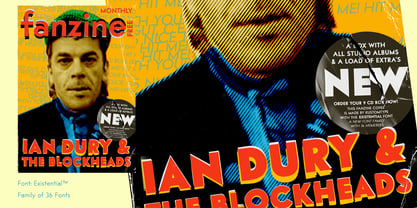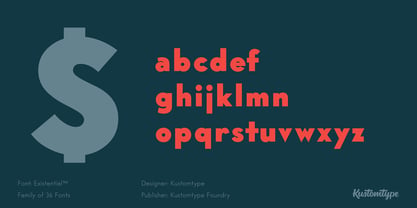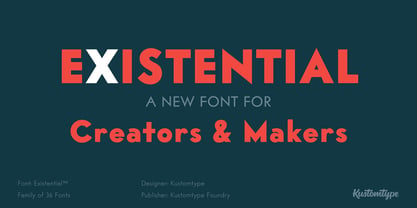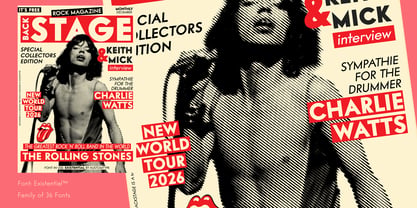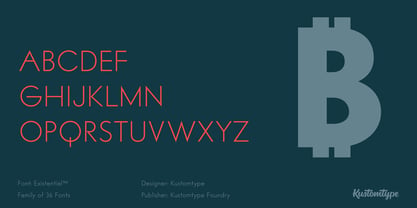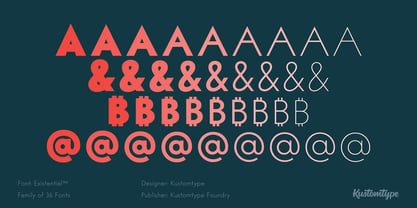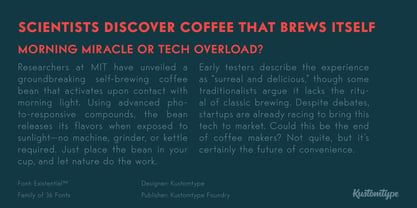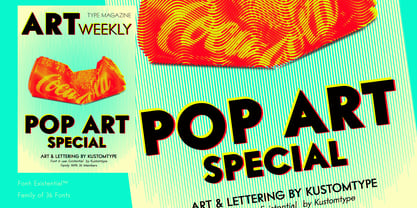
Existential
by Kustomtype
The Existential Font Family was designed by Coert De Decker and published by Kustomtype. Existential contains 36 styles and family package options. More about this family
Step into the spirit of 1930s American modernism. Existential (Original name - Vogue) is one of Intertype’s boldest creations—sleek, geometric, and radically minimal. Now fully redrawn and expanded, this revival brings an iconic piece of typographic history back to life with the versatility today’s designers demand. Family of 36 fonts From Thin to Black, engineered for clarity, balance, and optical precision Inspired by the Art Deco/Bauhaus movement Long descenders and open apertures for rhythm and readability Perfect for luxury branding, magazines, fashion, packaging & editorial design Built for both print and digital environments Distributed in Europe nearly a century ago by Ets. Plantin in Brussels, Existential (Original name Vogue) became a favorite among progressive designers. This new digital edition honors that heritage—while delivering a crisp, powerful toolset for today’s creative pioneers. Existential is more than a typeface. It’s a modernist legacy—reborn for the 21st century.
Designers: Coert De Decker
Foundry: Kustomtype